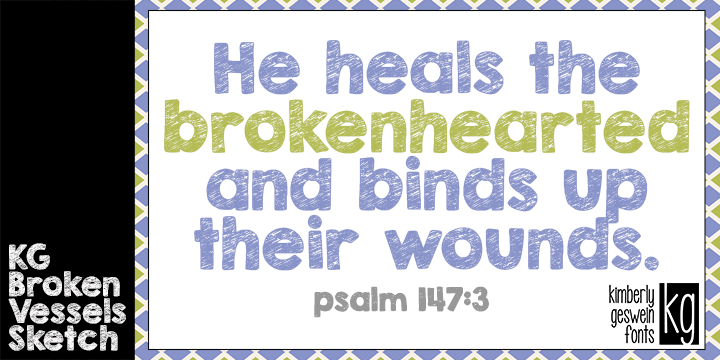
Preview and download KG Broken Vessels Sketch Font. Created by Kimberly Geswein in Fancy Eroded styles with Free for personal use license.
A hand-sketched sans serif sketch font. For a solid version, pair this with KG Second Chances Solid. Note: This font is large. Please be careful installing this on an older computer. For commercial licensing, please see http://kimberlygeswein.com |